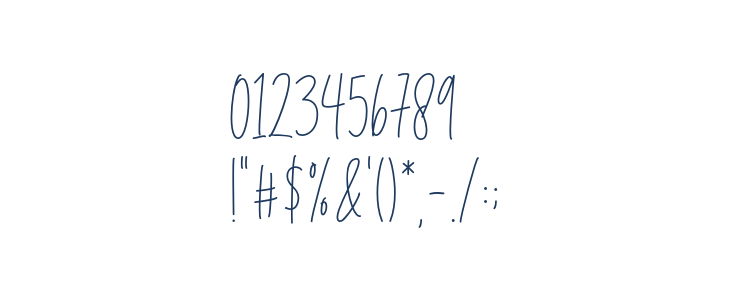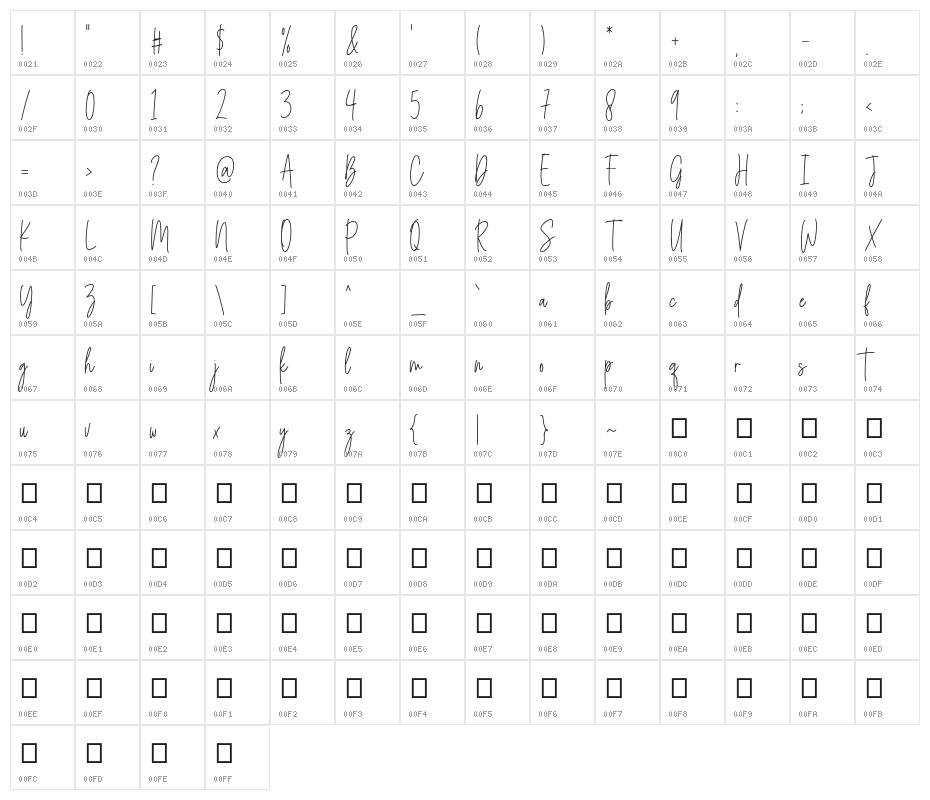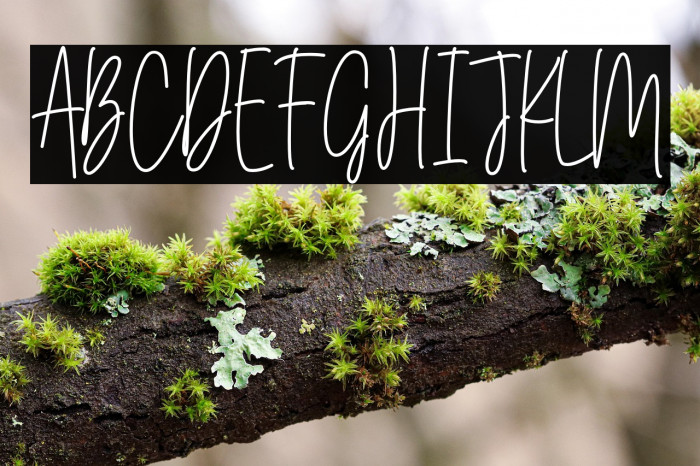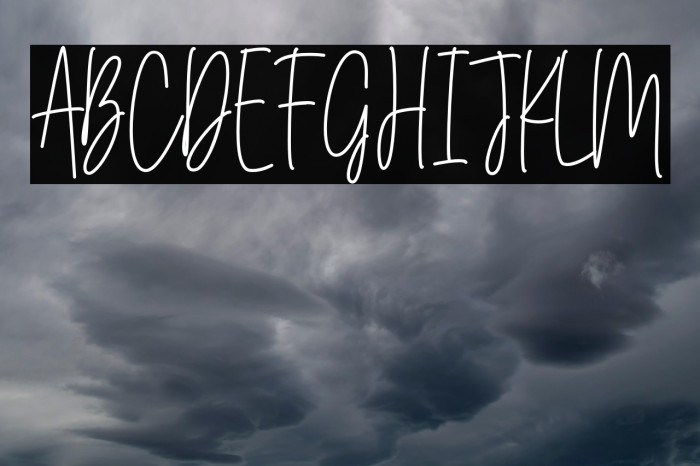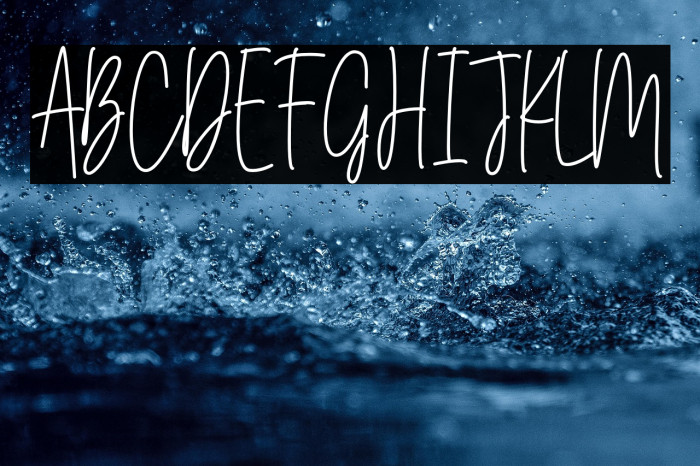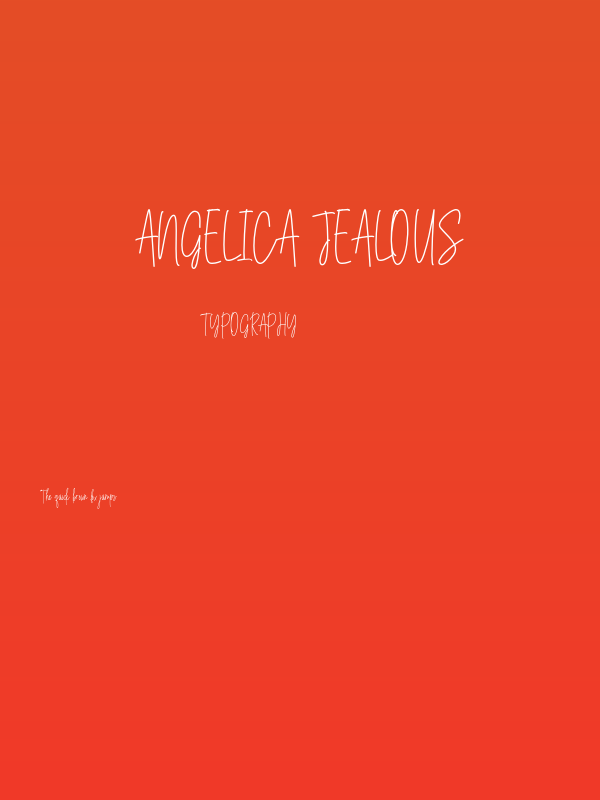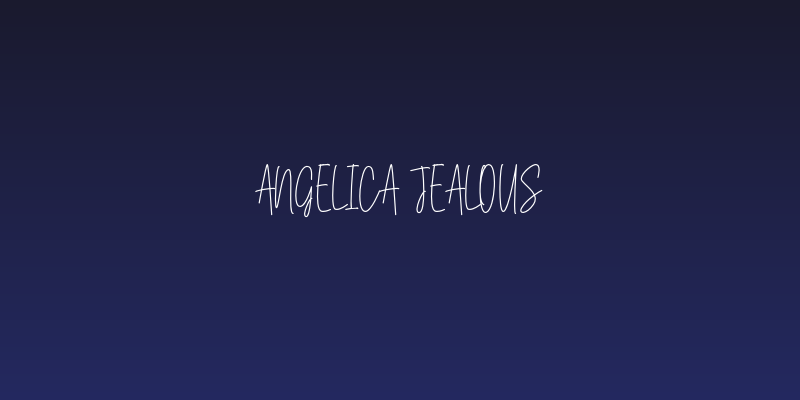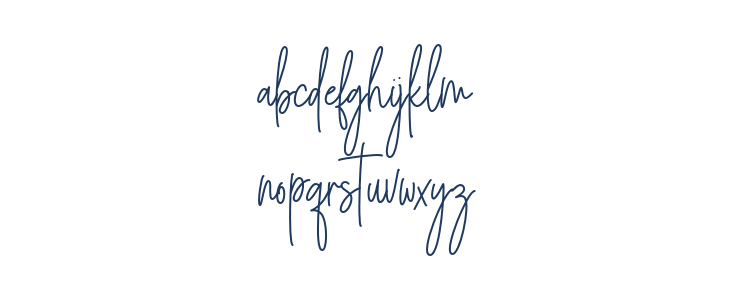
Angelica Jealous Font
Angelica Jealous Description
This font features a playful and casual handwritten style with tall, narrow letters. The strokes are thin and slightly irregular, giving it a personal and informal touch. The uppercase and lowercase letters maintain a consistent flow, while the numbers and special characters complement the overall aesthetic. The font's organic feel makes it suitable for projects that require a friendly and approachable look.
Overall StyleCasual
Use CaseLogos, Headlines, Informal text
Proposed ProjectsIdeal for greeting cards, personal branding, social media graphics, and informal invitations.